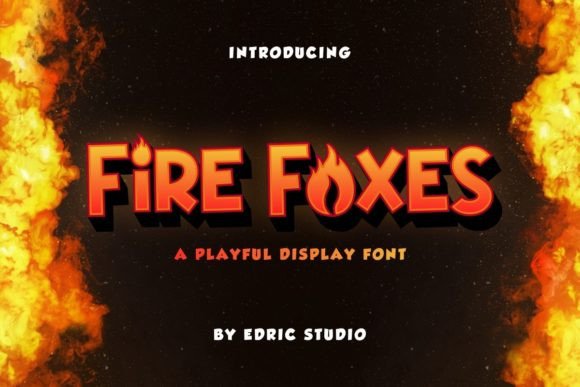
Fire Foxes: A Playful Font for Creative Projects
If you're looking for a unique and eye-catching font that brings a sense of fun and energy to your designs, Fire Foxes might be just what you need. This playful display font is inspired by the whimsical world of fox cartoons found in comics, blending them with a fiery twist that adds a dynamic visual element. Its bold and thick lettering makes it ideal for a wide range of creative projects, from logos to product packaging.
Fire Foxes isn't just about style—it's about making your work stand out. Whether you're designing a logo for a children's game or creating a headline for a coffee shop, this font can add a touch of personality and charm. Its design elements are carefully crafted to evoke a sense of playfulness while maintaining a professional appearance, making it versatile enough for both casual and commercial use.
What Makes Fire Foxes Unique?
One of the standout features of Fire Foxes is its combination of cartoon-like elements with a fire effect. This gives the font a lively and vibrant feel, perfect for designs that aim to capture attention. The thick strokes and rounded edges make it easy to read, even at smaller sizes, while the fiery accents add a layer of visual interest.
The font’s inspiration comes from classic comic book illustrations, where foxes are often depicted as clever and mischievous characters. By incorporating these traits into the typography, Fire Foxes brings a sense of storytelling to every letter. This makes it particularly appealing for projects that want to convey a sense of adventure or creativity.
Who Can Benefit from Using Fire Foxes?
Fire Foxes is suitable for a wide range of users, from beginners to professionals. If you're a designer looking for a fresh and original typeface, this font can help you create something truly unique. For entrepreneurs and small business owners, it offers a way to differentiate their brand with a memorable and engaging visual identity.
Teachers and educators can also find value in using Fire Foxes for classroom materials, such as posters or handouts. Its playful style can make learning more engaging for students, especially when used in educational content related to stories or imaginative activities. Similarly, marketers and advertisers can leverage the font to create eye-catching campaigns that resonate with a younger, more creative audience.
Where to Use Fire Foxes
The versatility of Fire Foxes means it can be applied in various contexts. For example, it works well for headlines in magazines, websites, or social media posts. Its bold appearance makes it an excellent choice for hoodie designs, where a strong visual impact is essential. It can also be used in movie titles or promotional banners to add a sense of excitement and energy.
In the retail sector, Fire Foxes can be used on product packaging, price tags, or signage to create a cohesive and appealing brand image. Coffee shops, for instance, might use it for menu boards or branding materials to give their space a fun and welcoming vibe. The font’s flexibility allows it to adapt to different styles, making it a valuable tool for designers across multiple industries.
Practical Tips for Using Fire Foxes
Before using Fire Foxes, it's important to consider the context in which it will be applied. While the font is highly readable, it may not be suitable for long blocks of text due to its stylized nature. Instead, it's best used for short phrases, headlines, or decorative elements that require a strong visual presence.
When selecting a font like Fire Foxes, it's also helpful to test it in different sizes and backgrounds to ensure it maintains its clarity and impact. For digital projects, checking how the font appears on various devices and screen resolutions can help avoid any unexpected issues. Additionally, understanding the licensing terms is crucial, especially if the font will be used commercially.
Why Choose Fire Foxes Over Other Fonts?
While there are many fonts available that offer a playful or cartoonish style, Fire Foxes stands out due to its unique blend of elements. Unlike other fonts that may focus solely on simplicity or minimalism, Fire Foxes adds a layer of creativity and character that can elevate any design. Its fire effect gives it a distinct edge, making it more than just a decorative choice—it becomes a statement.
For those who want to express individuality in their work, Fire Foxes offers a way to do so without compromising on quality or readability. It’s a font that invites creativity and encourages experimentation, making it a favorite among designers who enjoy pushing the boundaries of traditional typography.
Conclusion: Embrace the Playfulness of Fire Foxes
Whether you're a designer, marketer, educator, or hobbyist, Fire Foxes provides a powerful tool for adding a touch of fun and flair to your projects. Its combination of cartoon-inspired visuals and fiery accents makes it a standout choice for a variety of applications. By understanding its strengths and limitations, you can effectively incorporate it into your work and bring a new level of creativity to your designs.